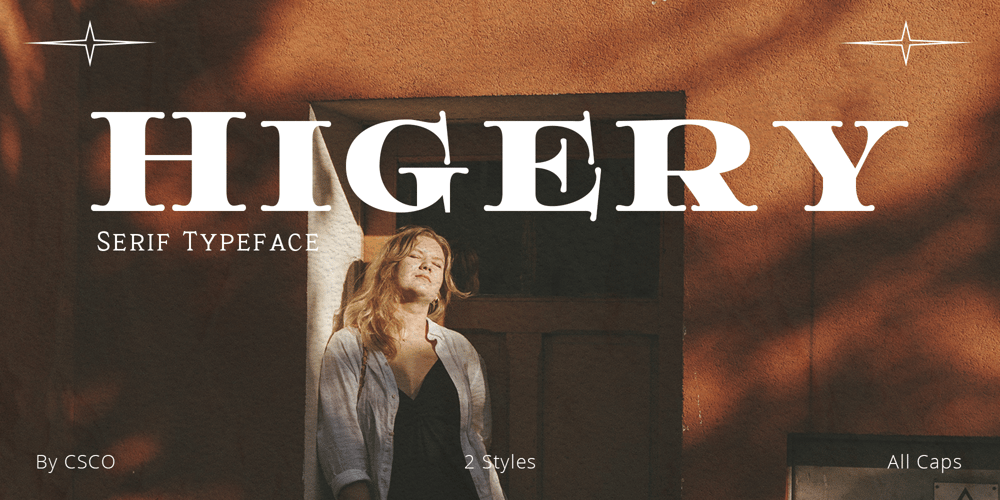
Higery Font Family was designed by Trio Nazzar Saputra, Wahyu Hadi Yuana and published by Craft Supply Co. Higery contains 2 styles and family package options. Higery – Serif Typeface: Uniquely EngagingDistinctive Tapered Details:Higery – Serif Typeface stands out with its unique tapered serifs. These details add a sophisticated charm. This font is ideal for captivating visual displays.Perfect for Visual Displays:Higery’s elegant tapering makes it perfect for eye-catching displays. It excels in adding an artistic touch to posters, ads, and more. Its uniqueness ensures your design stands out.Versatility in Design:Though unique, Higery remains versatile for various design needs. It seamlessly fits into digital and print media. This adaptability makes it a valuable tool for designers.Ease of Use for All:Higery is designed with user-friendliness in mind. It’s easy to use for designers of all skill levels. This approachability makes it a popular choice in the design community.Elevating Aesthetic Appeal:Incorporating Higery into your projects can significantly enhance their aesthetic appeal. Its distinctive serifs and elegant design elevate any content. Higery isn’t just a typeface; it’s a visual experience.